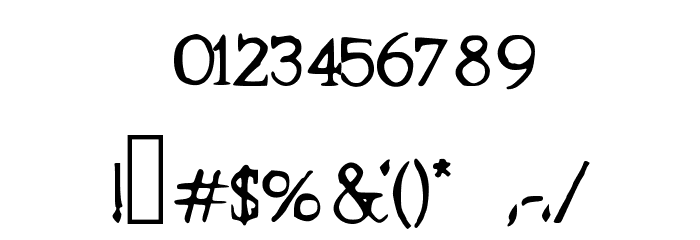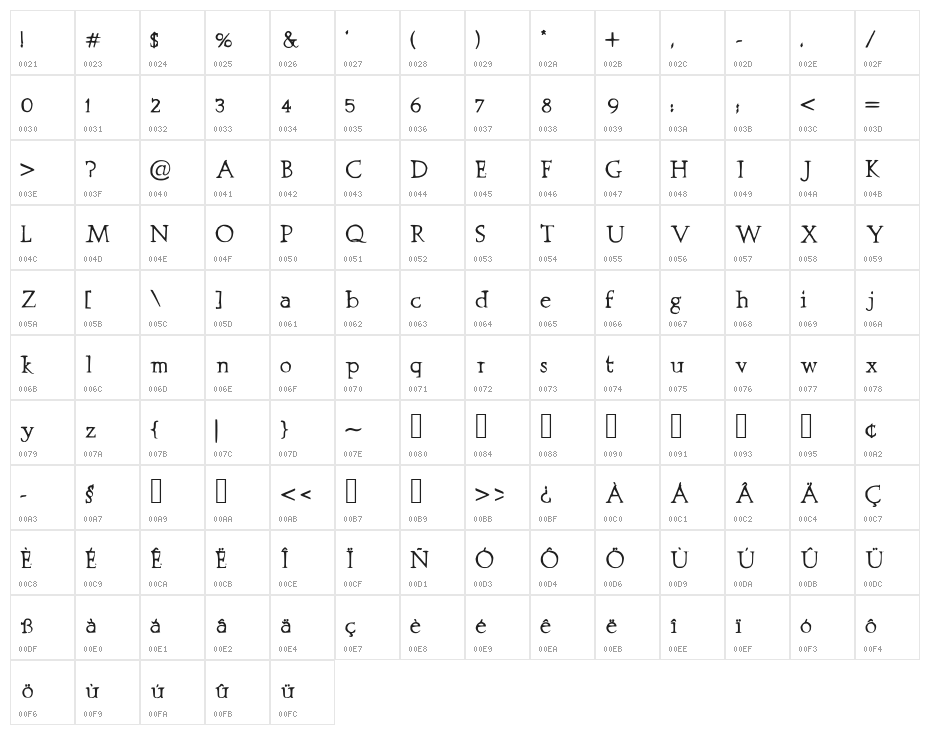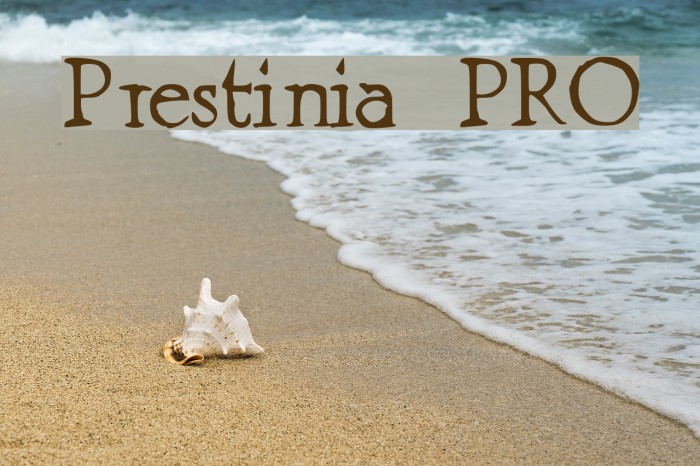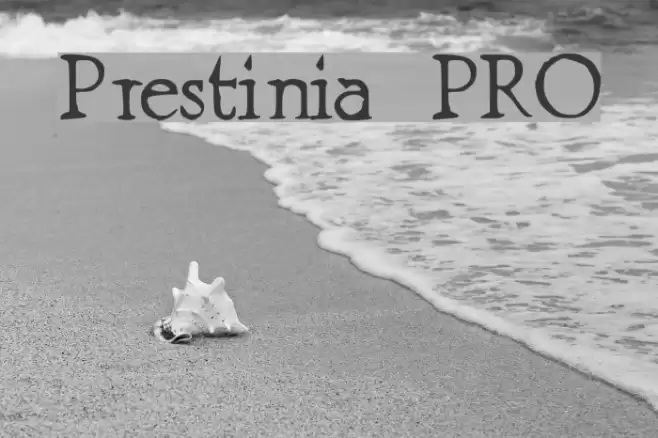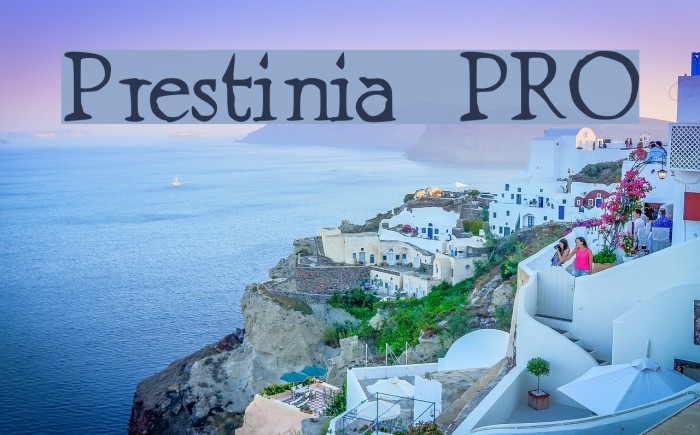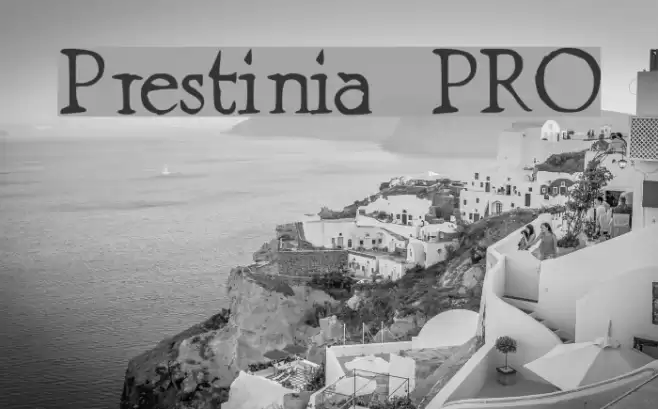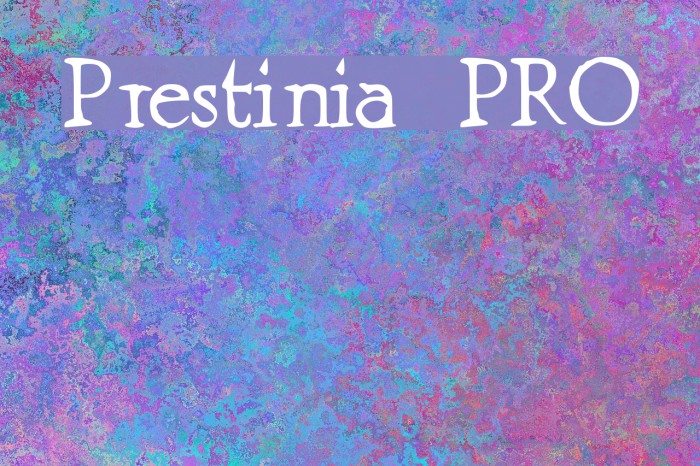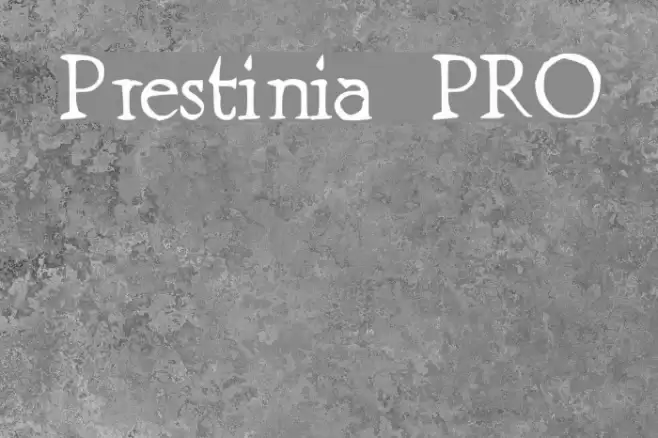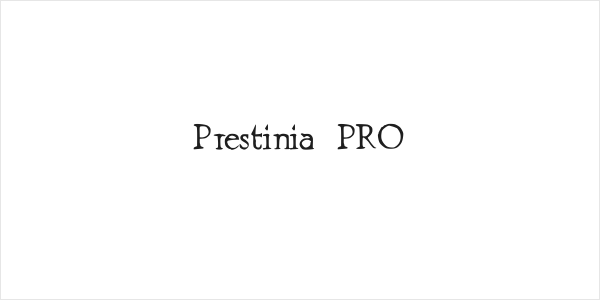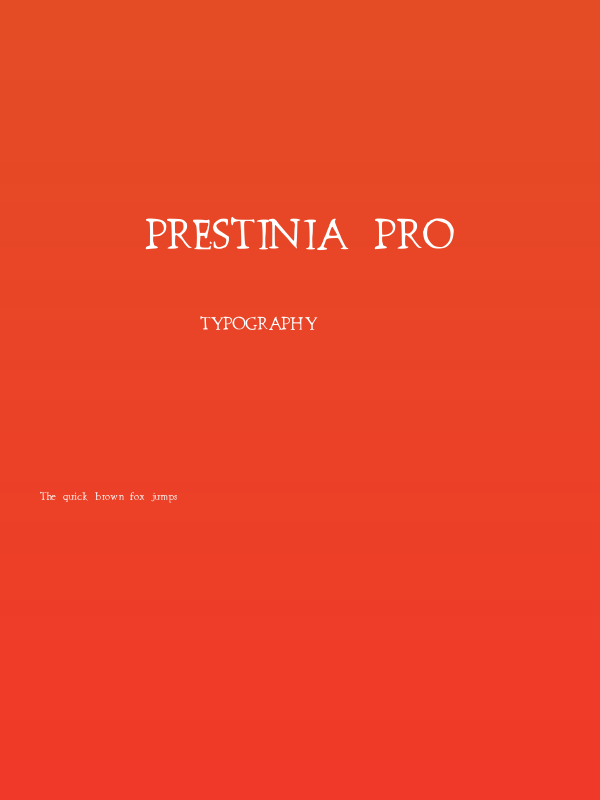
Prestinia PRO Font
Prestinia PRO Description
This font features a distinctive and artistic style, characterized by its unique and slightly irregular serif design. The uppercase letters exhibit a bold and dramatic flair, with varying stroke widths that add a touch of elegance and sophistication. The lowercase letters maintain a consistent style, with a playful yet refined appearance. Numbers are crafted with the same attention to detail, ensuring readability while maintaining the font's artistic integrity. Special characters are thoughtfully designed to complement the overall aesthetic, making this font versatile for various creative projects.
| Proposed Projects | Ideal for creative projects such as book covers, posters, branding, and invitations where a touch of elegance and uniqueness is desired. |